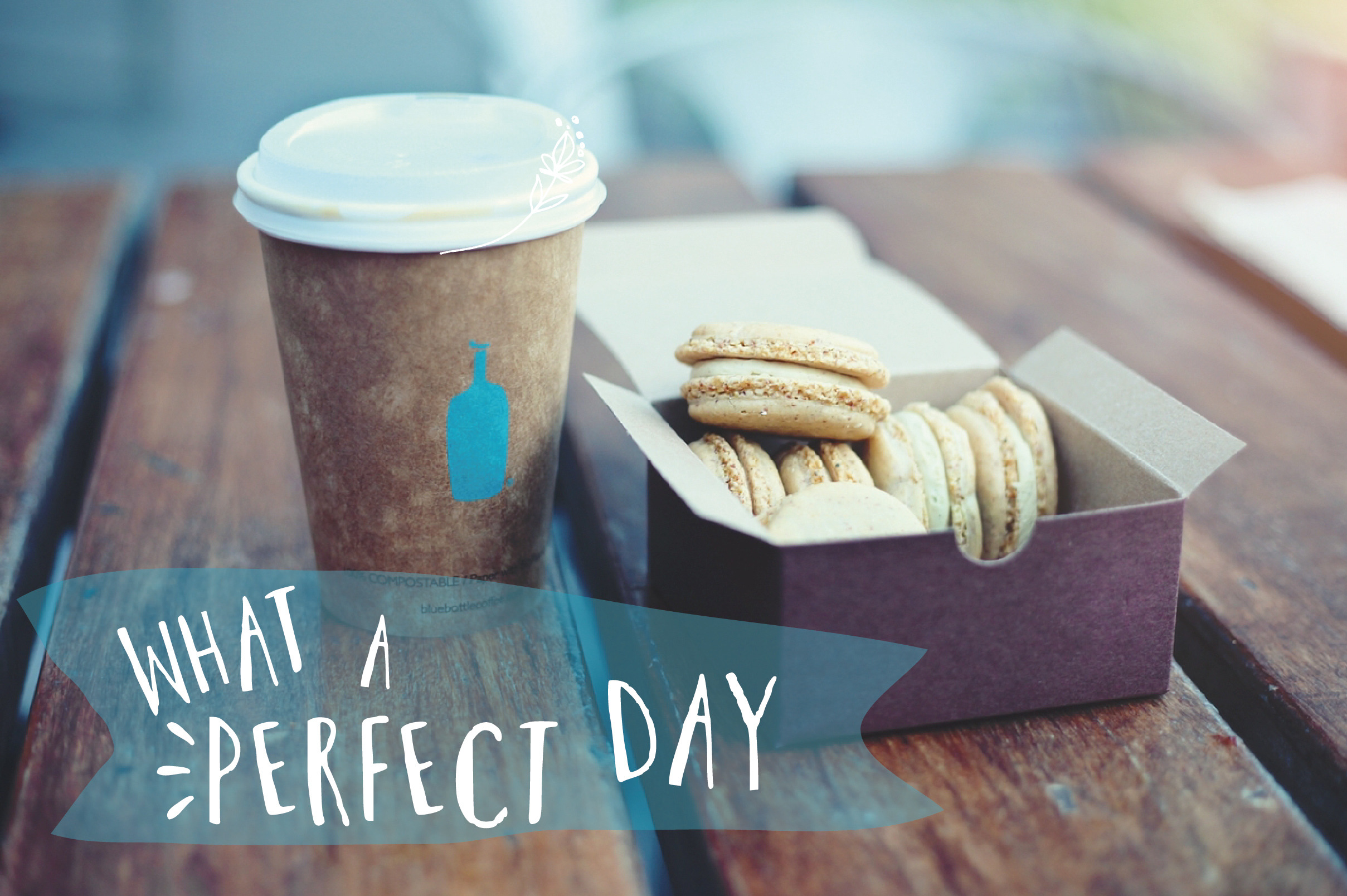
Hand Drawn Font- "Barber Shop"
This quirky hand-drawn ALL CAPS font is fun, charismatic and truly unique. Use it on your projects for an instant "WOW" factor.